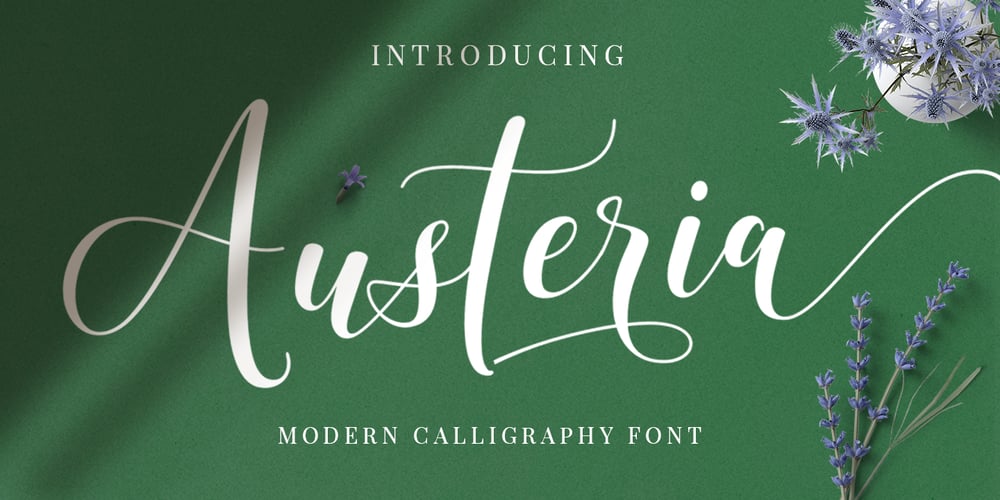
Austeria Script Font Family was designed by Miftahul Jannah and published by Mytha Studio. Austeria Script contains 1 styles and family package options. Austeria Script is a modern script with a handwritten style, decorative characters, and a dancing baseline! Perfect for use such as blog headers, branding, t-shirts, weddings, social media, product design, stationery, advertisements, clothing, book covers, business cards, greeting cards, branding, merchandise, handcrafted invitations and quotes and many more.Files include:-Austeria Script .otf-Austeria Script .ttfAusteria Script featuring an alternative to OpenType styles, ligatures and International support for most Western Languages is included. To activate the OpenType Stylistic alternative, you need a program that supports OpenType features such as Adobe Illustrator CS, Adobe Indesign & CorelDraw X6-X7, Microsoft Word 2010 or a later version.How to access all alternative characters using Adobe Illustrator:https://www.youtube.com/watch?v=XzwjMkbB-wQAusteria Script is coded with PUA Unicode, which allows full access to all additional characters without having to design special software. Mac users can use Font Book, and Windows users can use Character Map to view and copy any additional characters for pasting into your favorite text editor / application.How to access all alternative characters, using the Windows Character Map with Photoshop:https://www.youtube.com/watch?v=Go9vacoYmBwThank you!